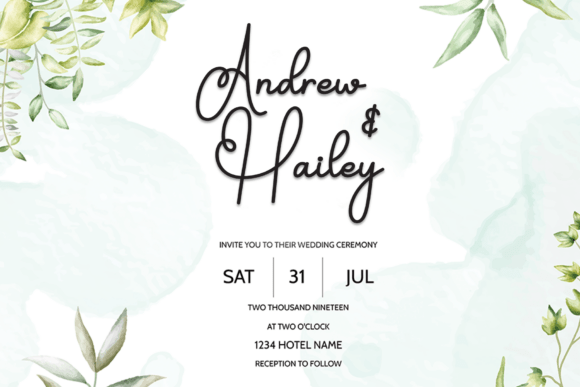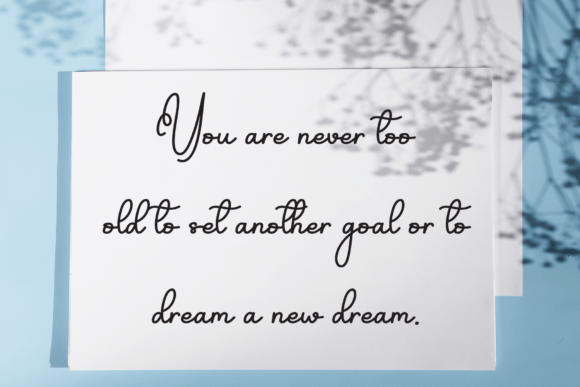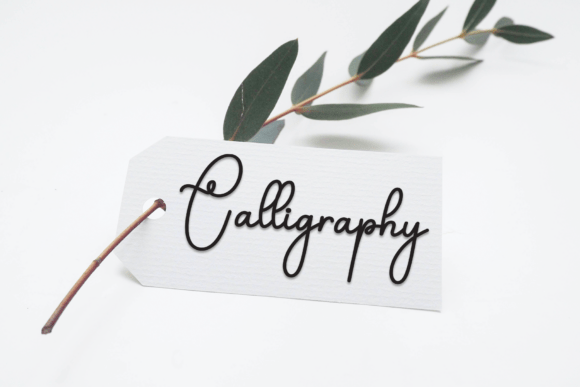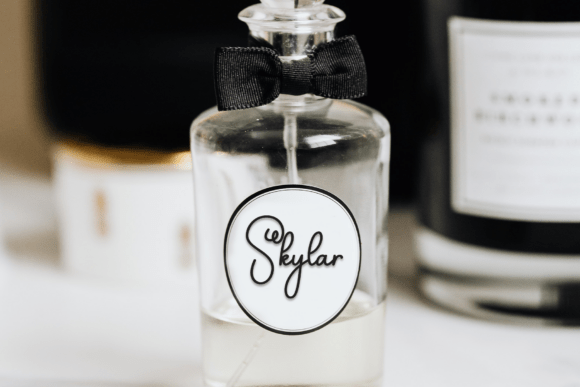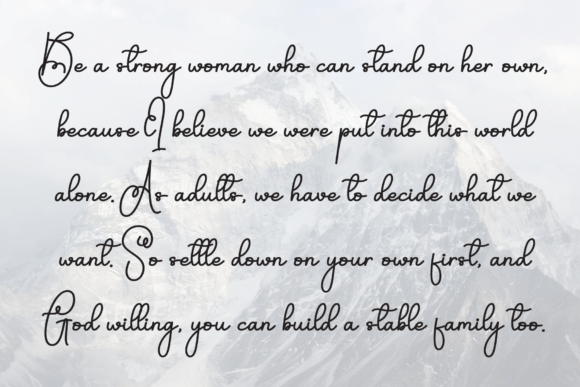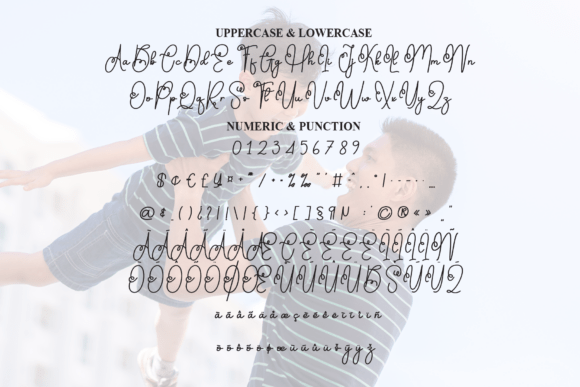
Introducing Father Font: The Ultimate Handwritten Display Font for Adding Warmth and Playfulness to Your Designs
Are you tired of using the same old fonts in your designs? Do you want to add a touch of warmth and playfulness to your creative endeavors? Look no further than Father Font, a charming handwritten display font that’s perfect for making your designs stand out. In this article, we’ll take a closer look at Father Font and explore its unique features, benefits, and uses.
A Font that Exudes Warmth and Playfulness
Father Font is an endearing and welcoming handwritten display font that’s designed to impart a sense of warmth and playfulness into your designs. Its light-hearted spirit and sweet, amiable characteristics make it the perfect choice for designers and crafters who want to add a distinctive touch to their creations. Whether you’re working on a wedding invitation, a heartfelt card, or any other design project, Father Font is sure to bring a smile to your audience’s faces.
Wedding invitations and cards are special occasions that call for a font that’s both elegant and playful. Father Font fits the bill perfectly, adding a touch of whimsy and romance to your designs. Its charming and welcoming nature makes it ideal for crafting engaging wedding invitations, heartfelt cards, and other special occasion designs. With Father Font, you can create designs that are both memorable and meaningful.
A Versatile Font for Various Design Projects
Father Font is not just limited to wedding invitations and cards. Its versatility makes it suitable for a wide range of design projects, including:
- Blog posts and articles
- Product labels and packaging
- Signs and posters
- Digital and print advertisements
Whether you’re working on a personal or commercial project, Father Font is sure to add a touch of warmth and playfulness to your designs.
Key Features of Father Font
So, what makes Father Font so special? Here are some of its key features:
- Handwritten display font: Father Font is a handwritten display font that’s designed to add a personal touch to your designs.
- Warm and playful: Its light-hearted spirit and sweet, amiable characteristics make it perfect for designs that require a touch of warmth and playfulness.
- Charming and welcoming: Father Font is an endearing and welcoming font that’s sure to make your designs stand out.
- Versatile: It’s suitable for a wide range of design projects, from wedding invitations and cards to social media graphics and product labels.
How to Use Father Font in Your Designs
Using Father Font in your designs is easy. Here are some tips to get you started:
- Pair it with other fonts: Father Font works well with other fonts, so feel free to experiment with different combinations to find the perfect look for your design.
- Use it for headings and titles: Father Font is perfect for headings and titles, adding a touch of warmth and playfulness to your designs.
- Experiment with colors: Father Font looks great in a variety of colors, so don’t be afraid to experiment and find the perfect color scheme for your design.
In conclusion, Father Font is a charming handwritten display font that’s perfect for adding a touch of warmth and playfulness to your designs. Its light-hearted spirit, sweet, and amiable characteristics make it ideal for a wide range of design projects, from wedding invitations and cards to social media graphics and product labels. With its versatility and ease of use, Father Font is sure to become a favorite among designers and crafters.